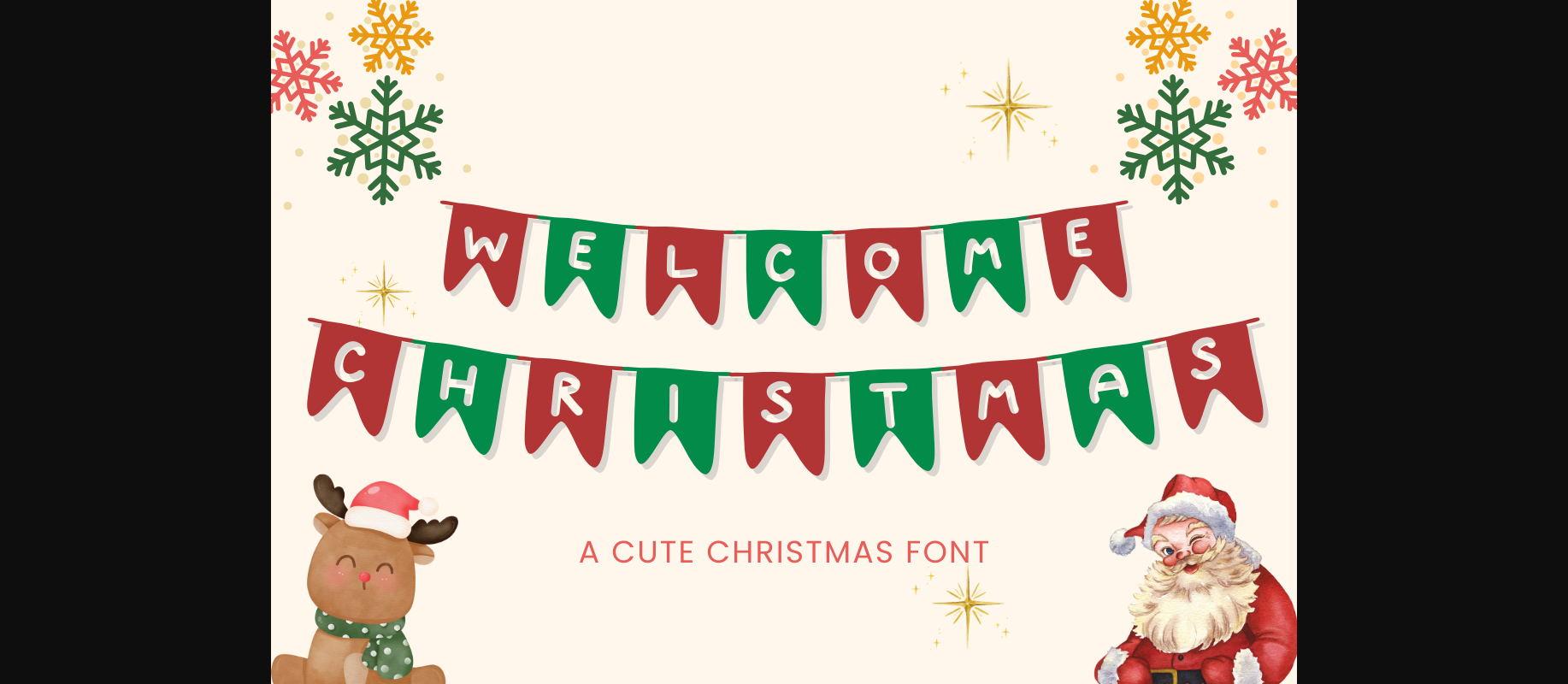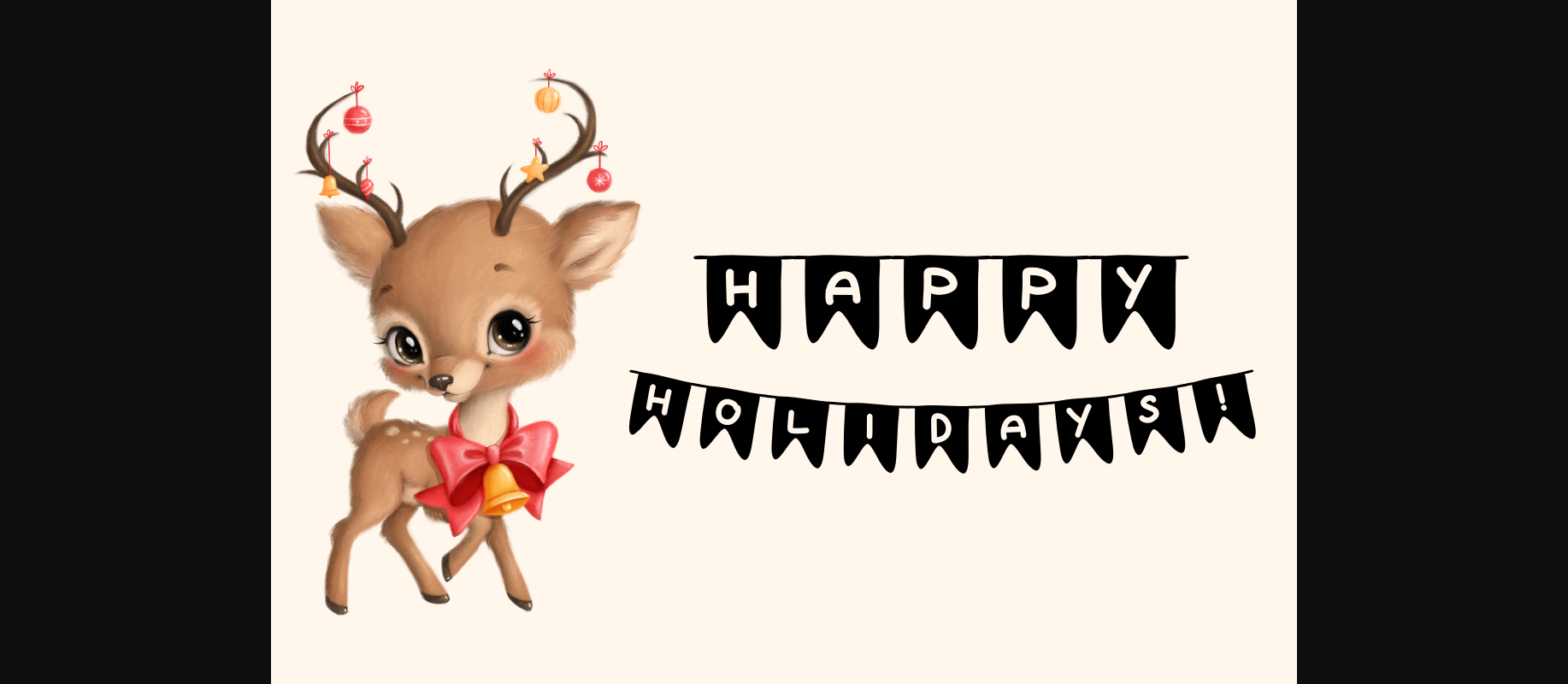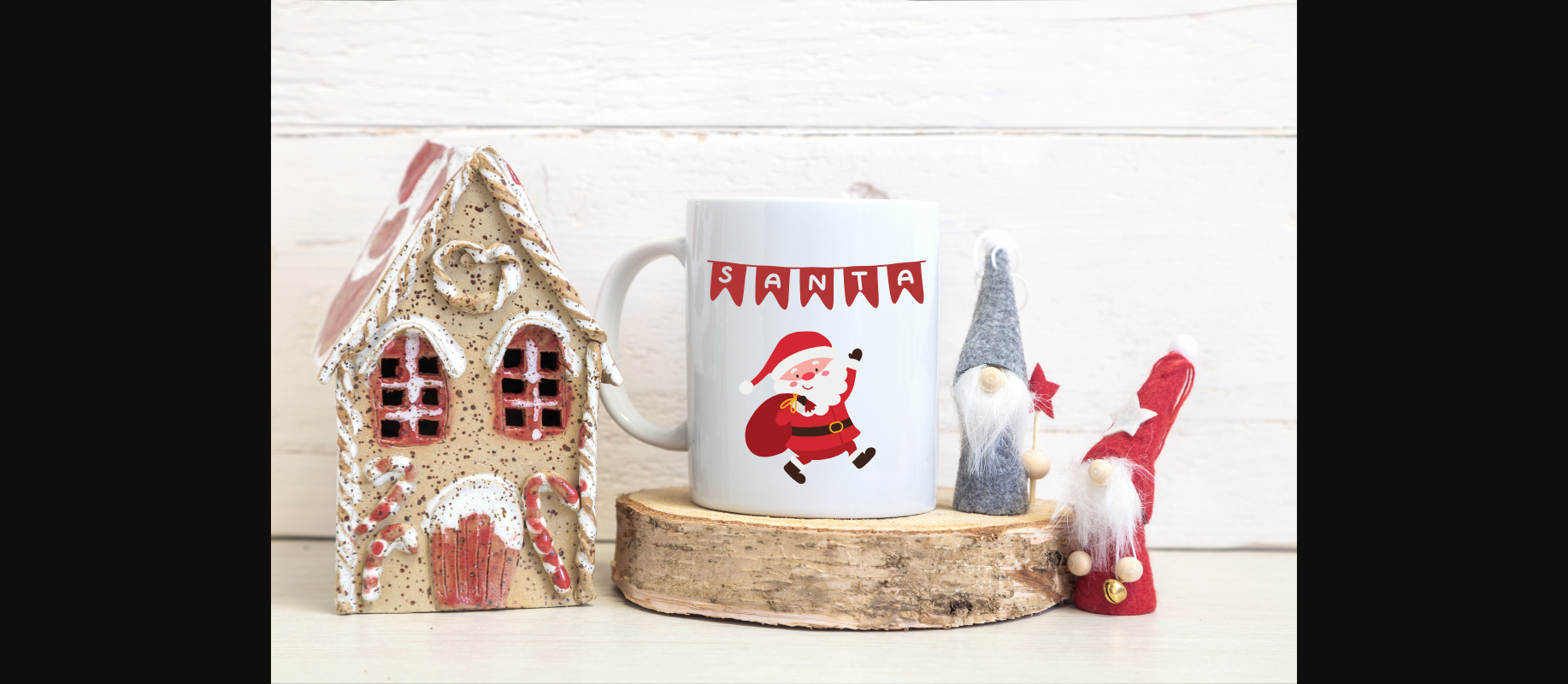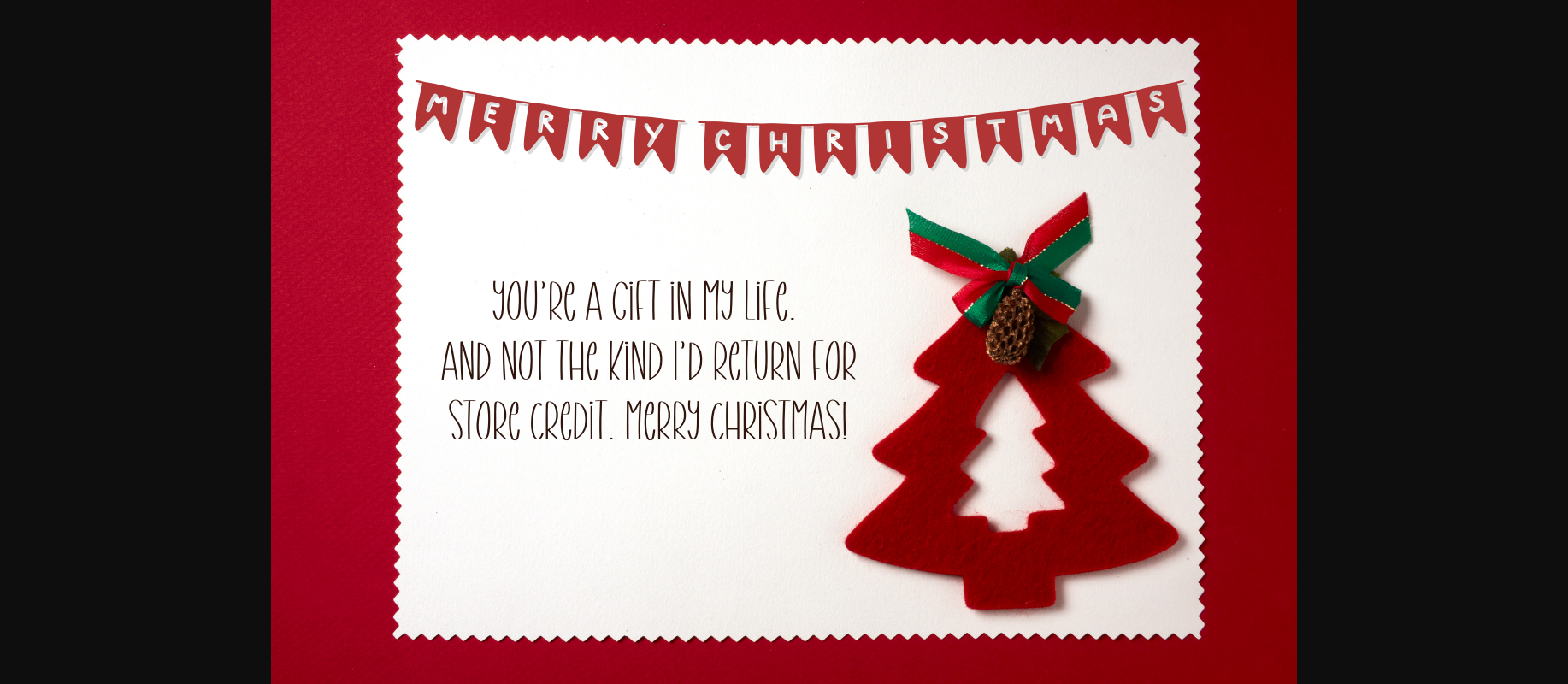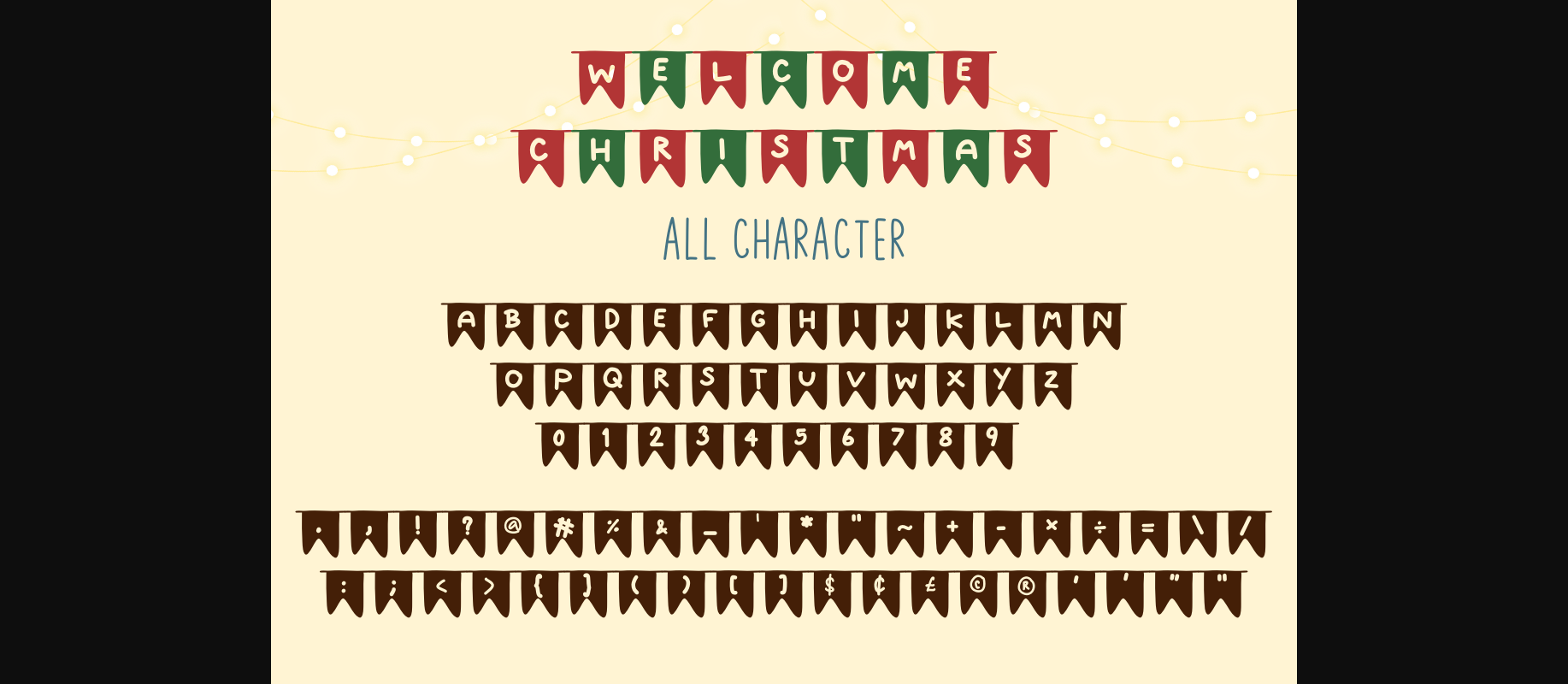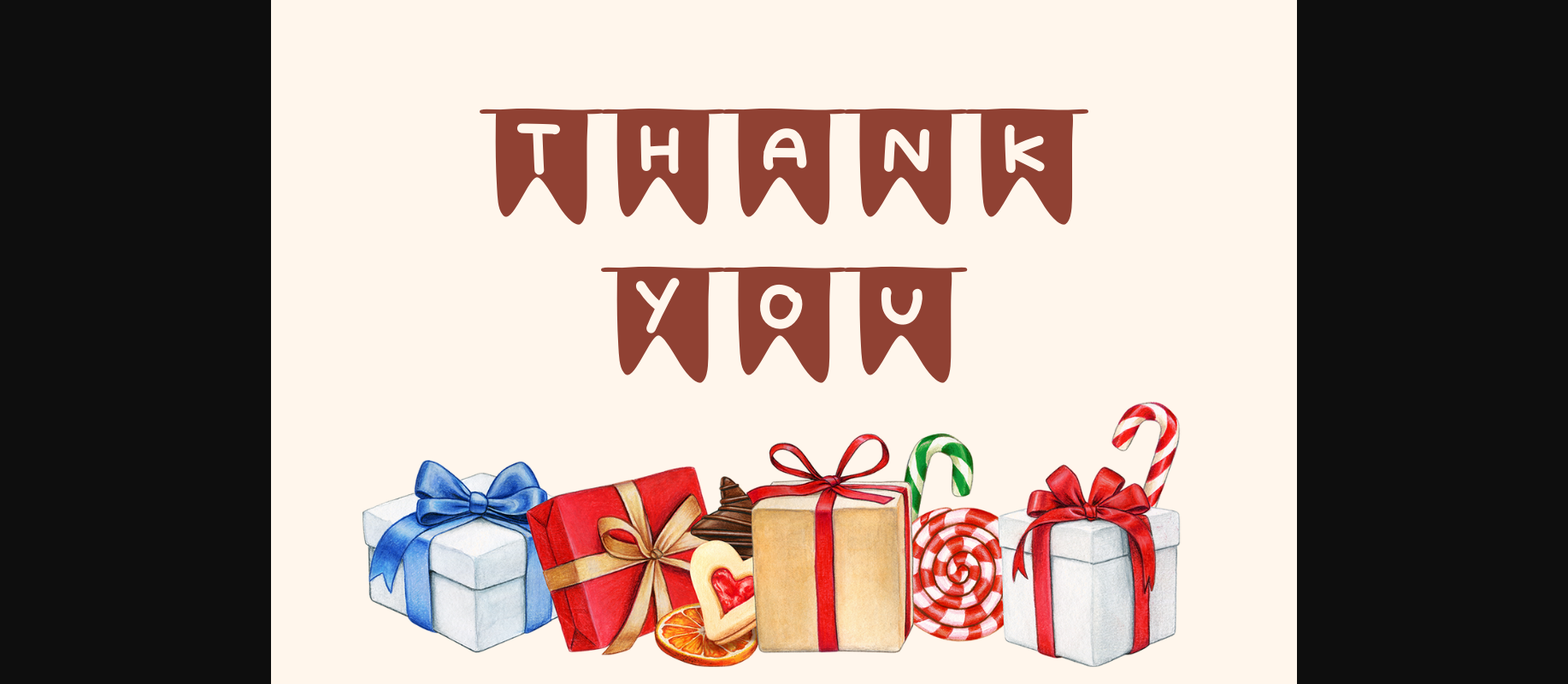
Welcome Christmas Font
About Welcome Christmas Font
Welcome Christmas is a cute Christmas font. It is a unique display font. Playful and a little bit quirky, this font is the perfect fit for all of your festive or winter projects.